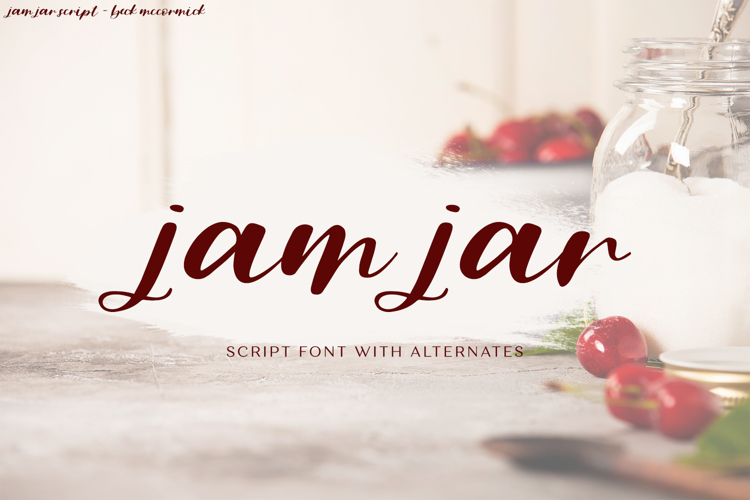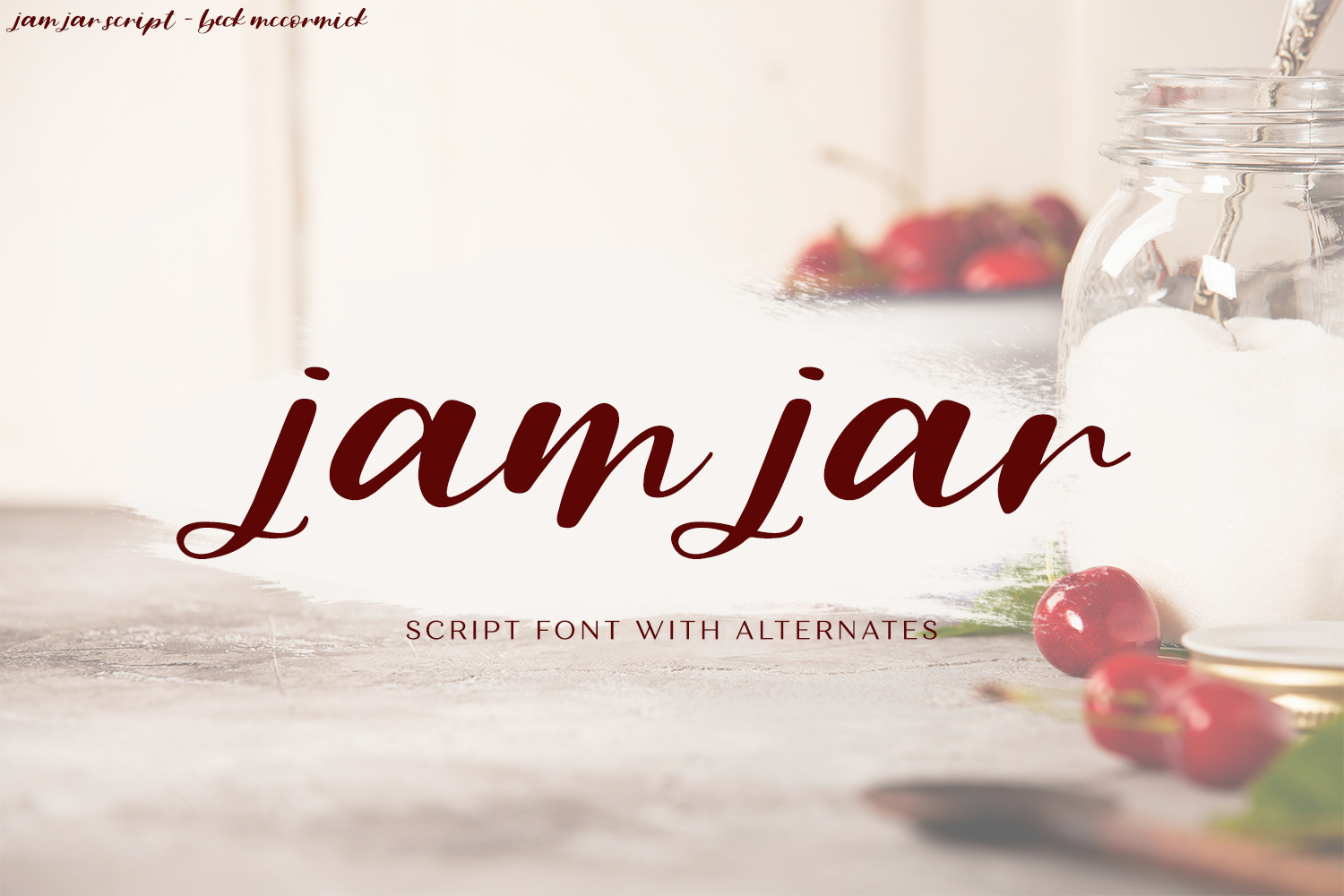
Introducing Jam Jar Script, a stout little script.
**Jam Jar Script** is best for:
- header elements that need a feminine touch
**Jam Jar** includes:
- 26 lowercase alternate characters + "tt" ligature